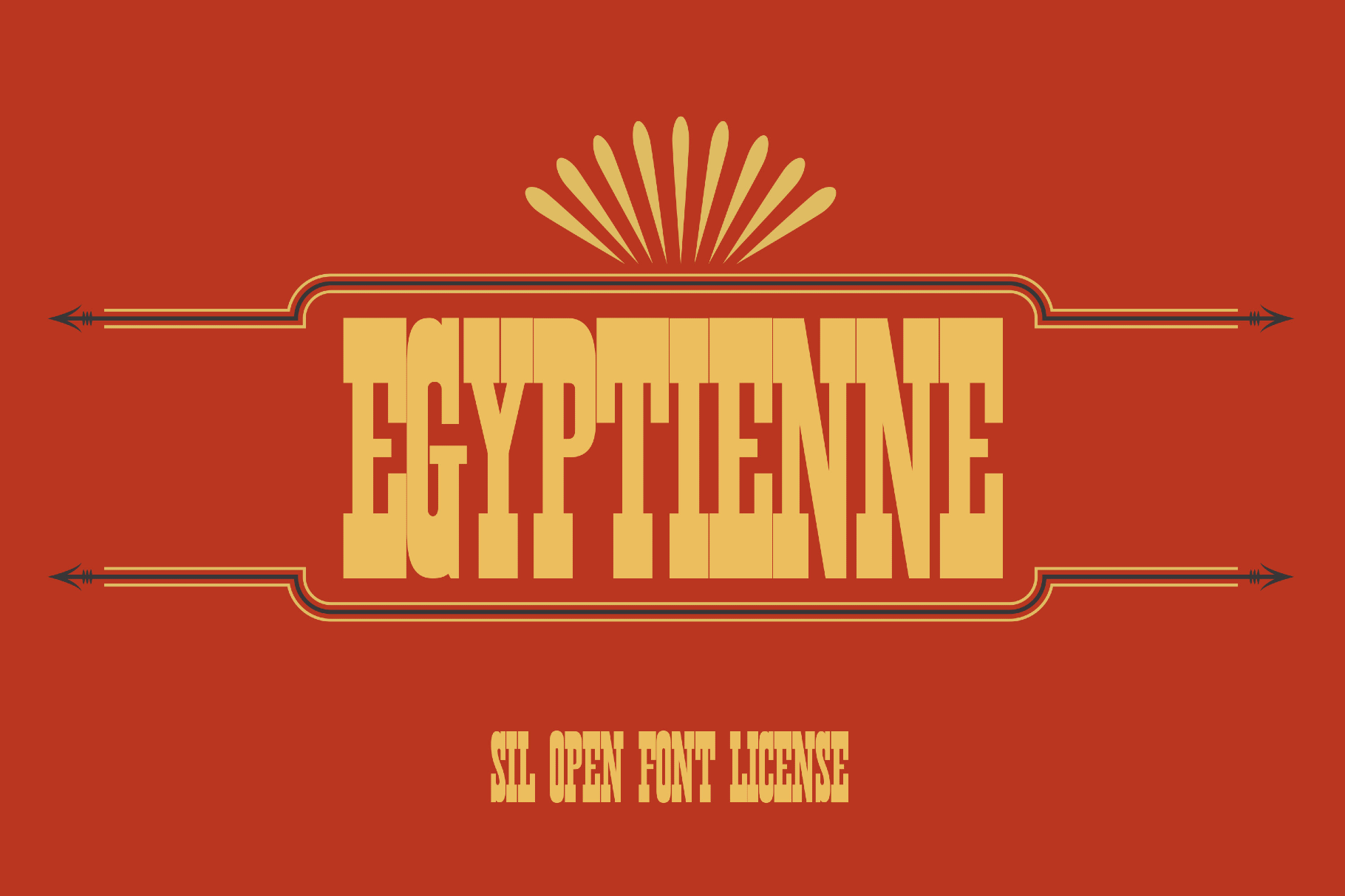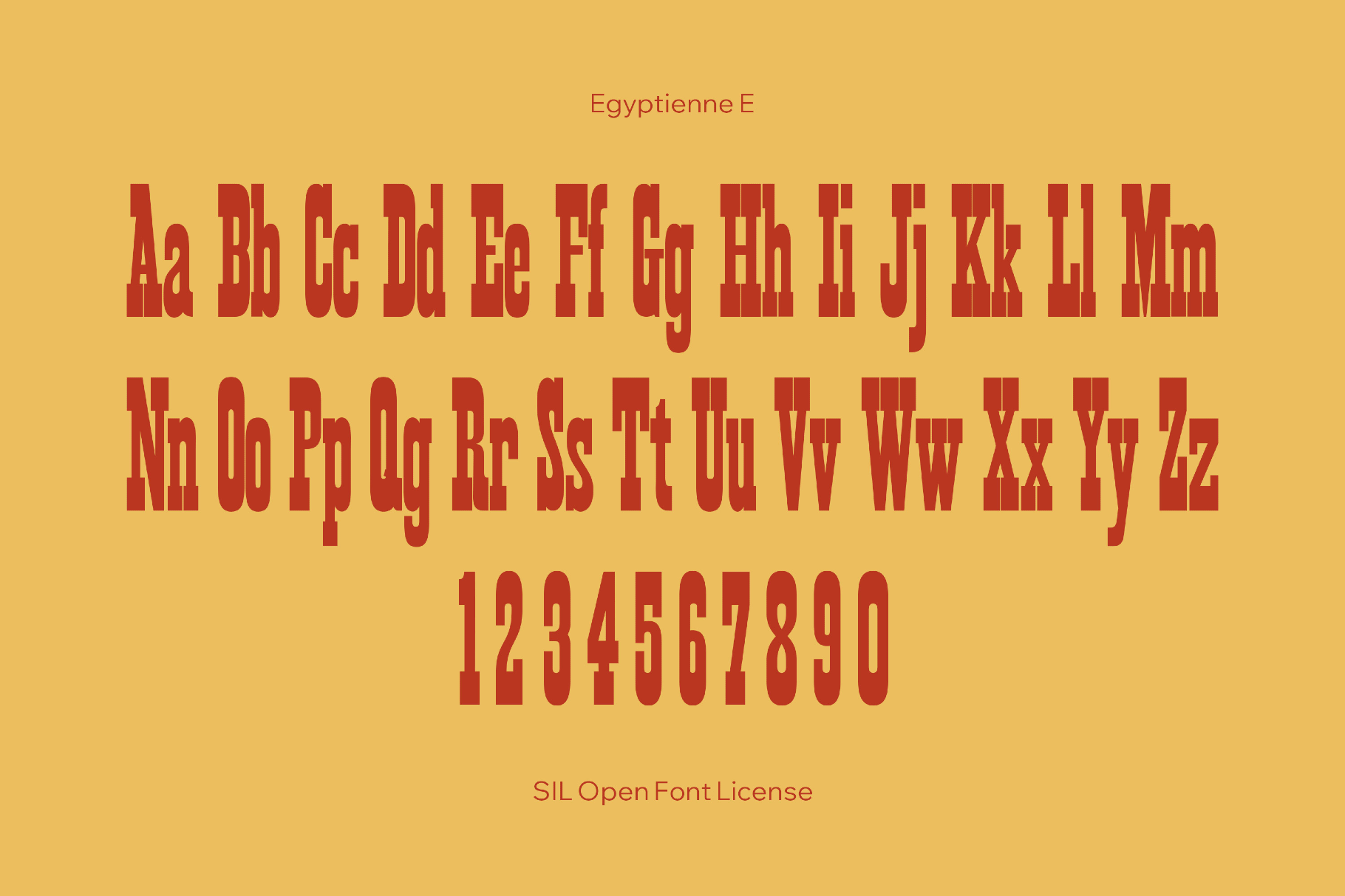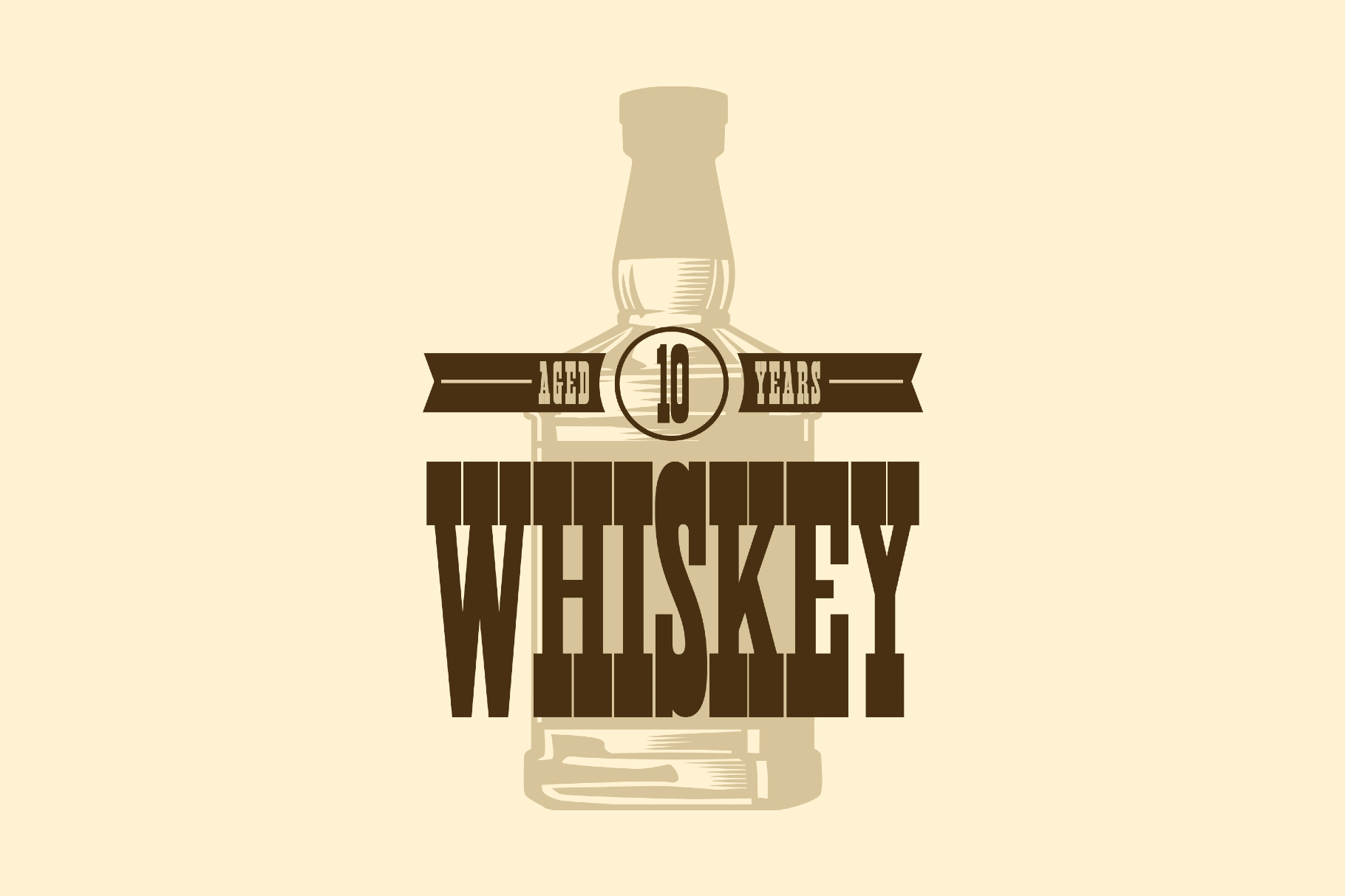
Egyptienne E
EgyptienneE
Egyptienne E is a sturdy slab serif with the square-shouldered authority of 19th-century Egyptian type and letterpress posters, with blunt terminals and composed, editorial cadence. The direct, utilitarian design with a clear Western tint makes this font a strong choice for headlines, spirit and craft packaging, logos, labels, tickets, badges, book covers or chapter openers, signage, and magazine layouts.